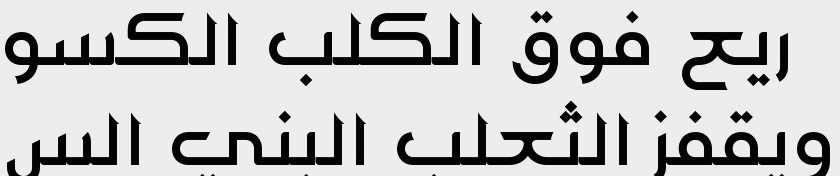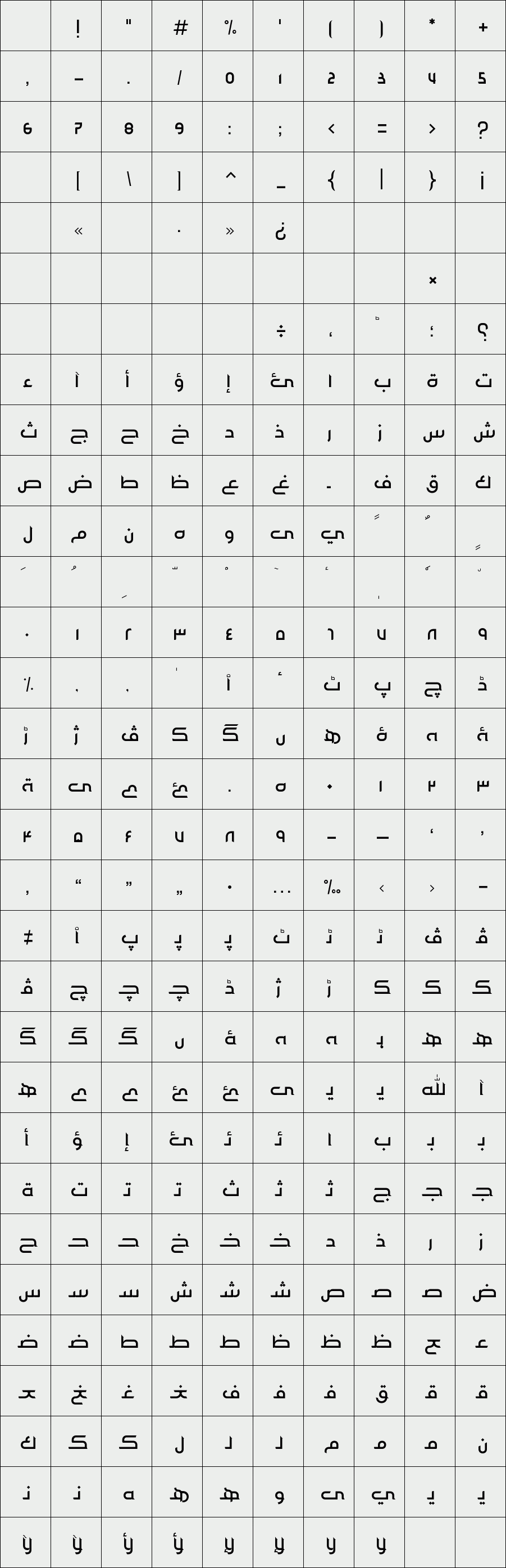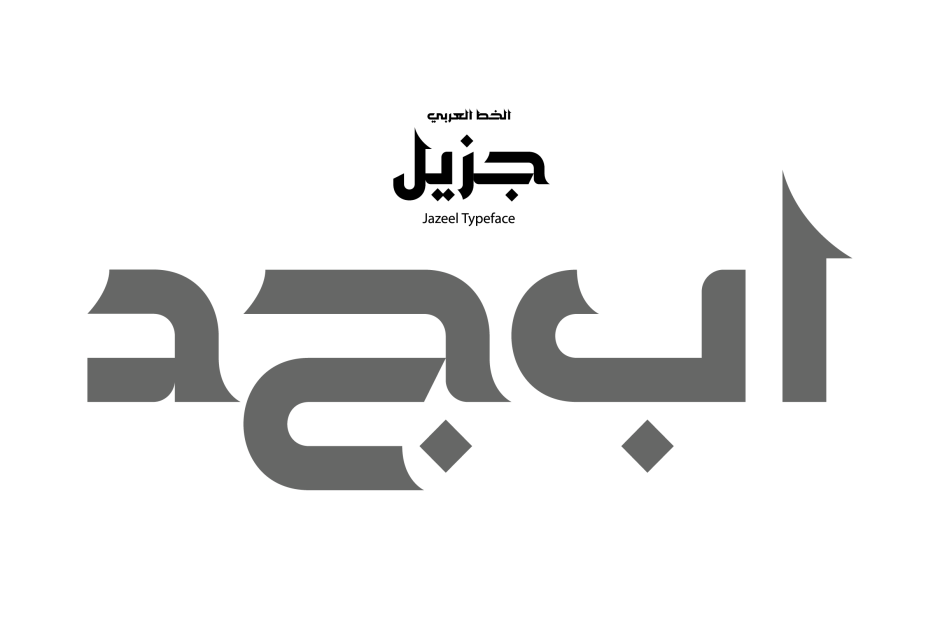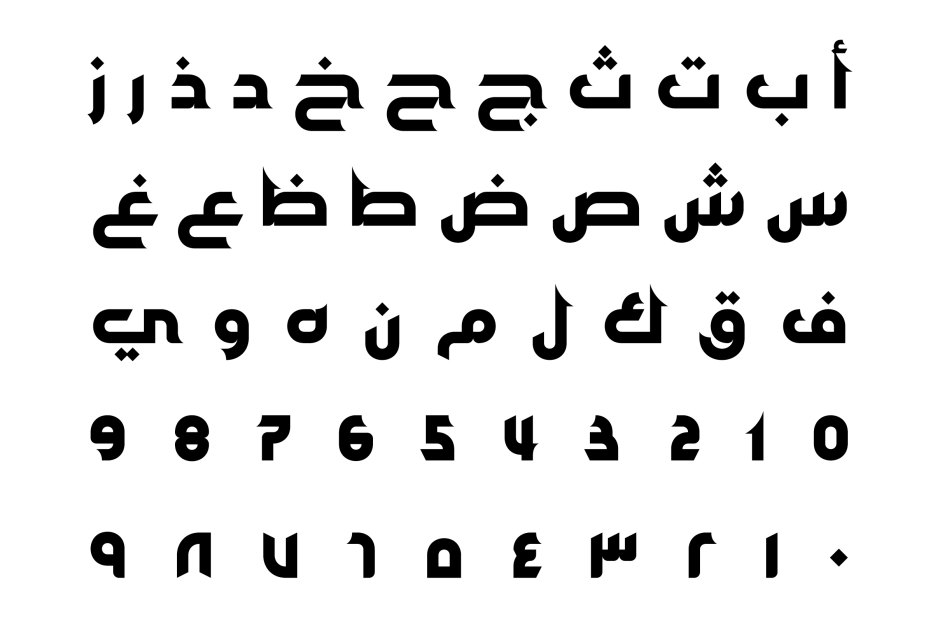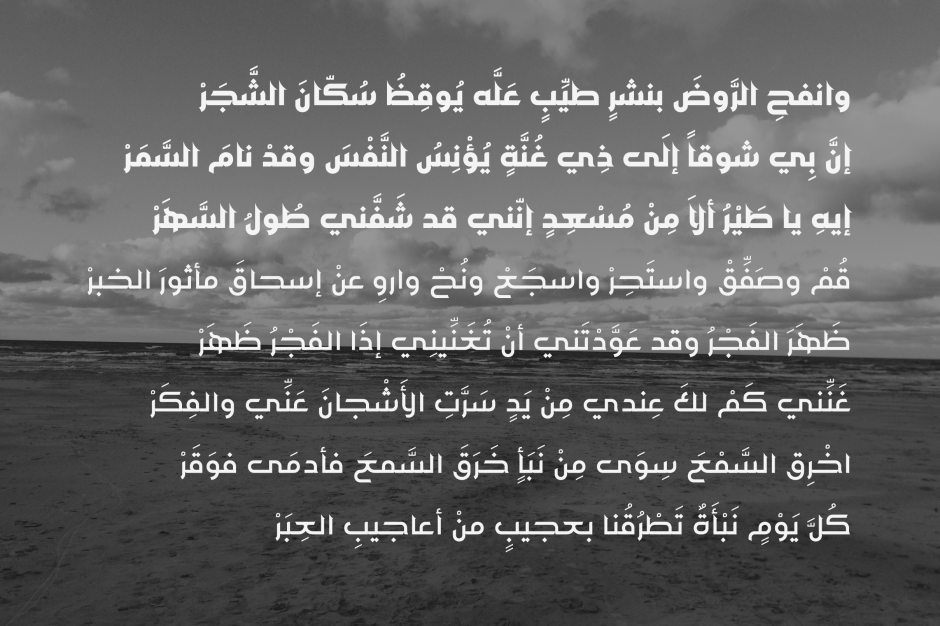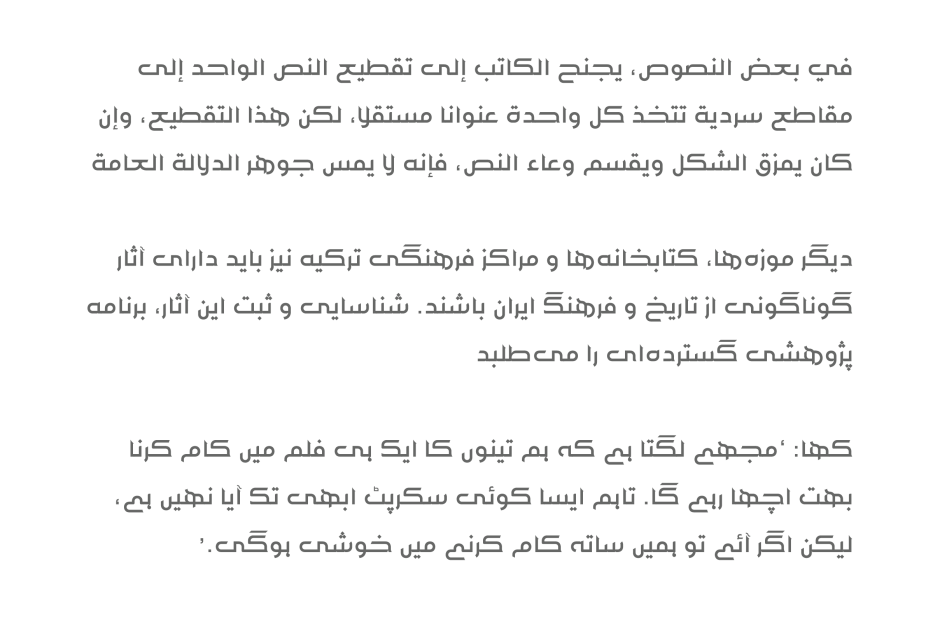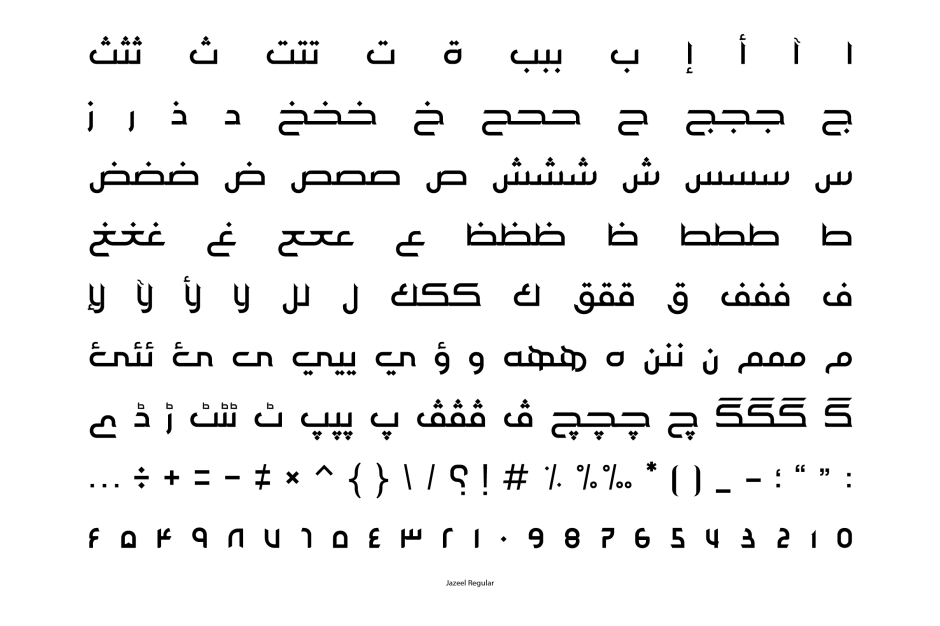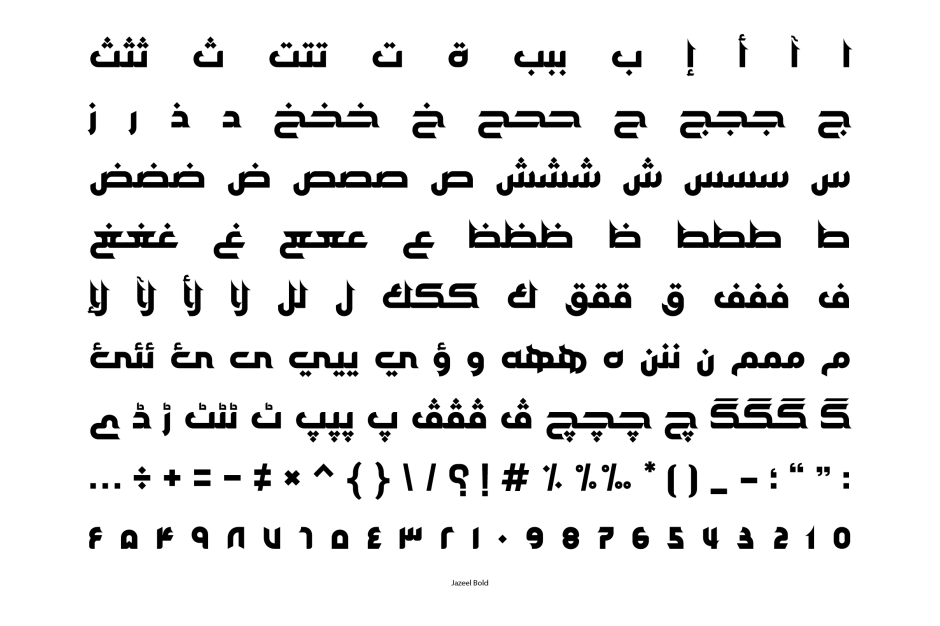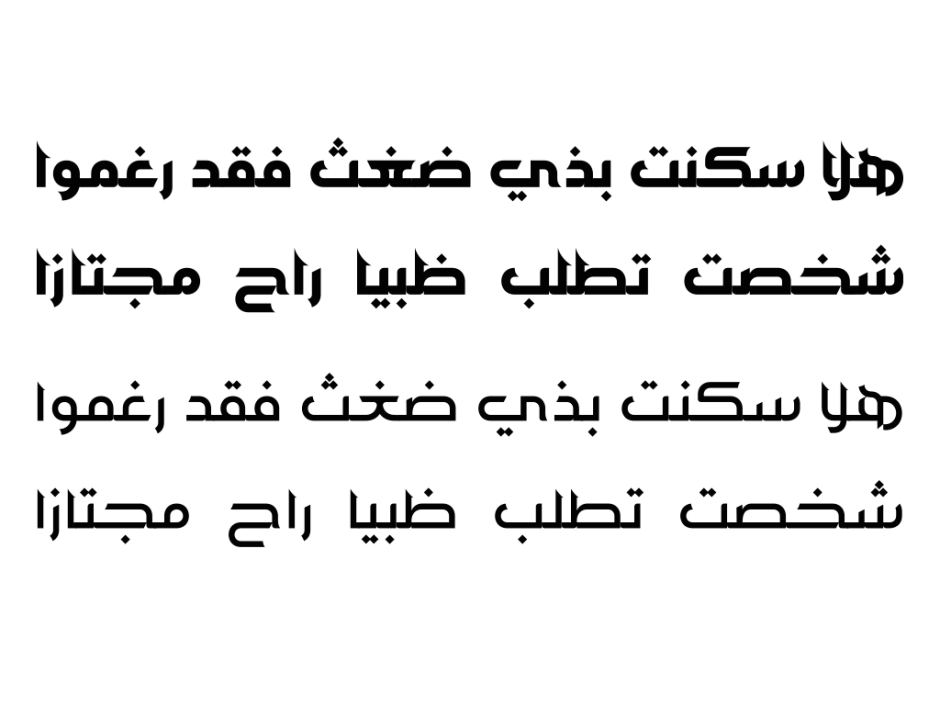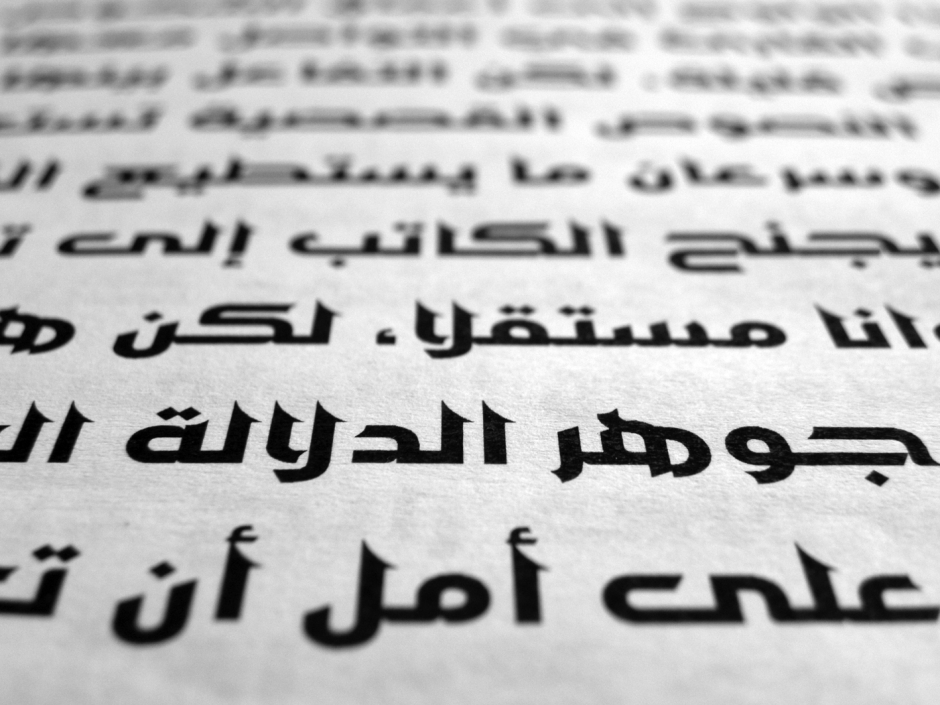
Jazeel
Jazeel is an Arabic font that is based on solid geometric structure. Boldness and legibility are the key attributes of its letters, which expands its applications to include headings and paragraphs for both print and web. Jazeel consists of two weights; regular and bold.